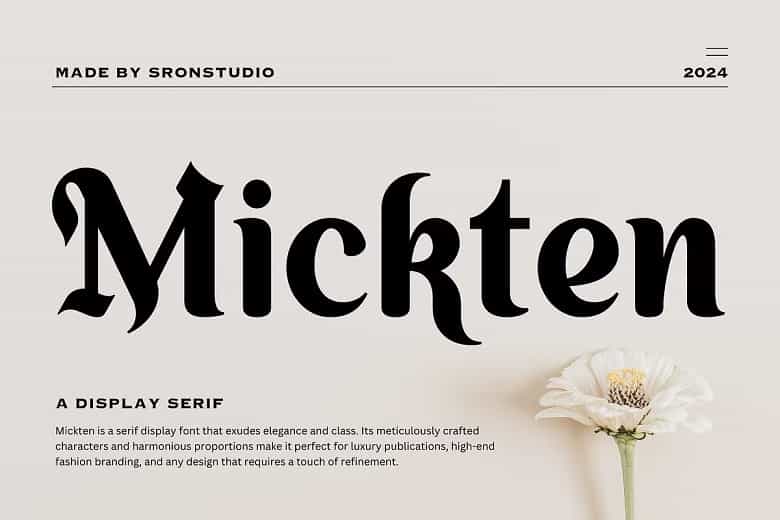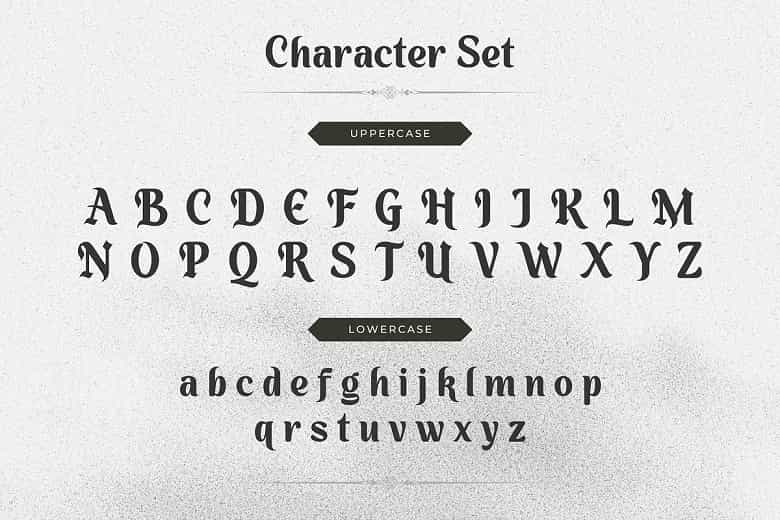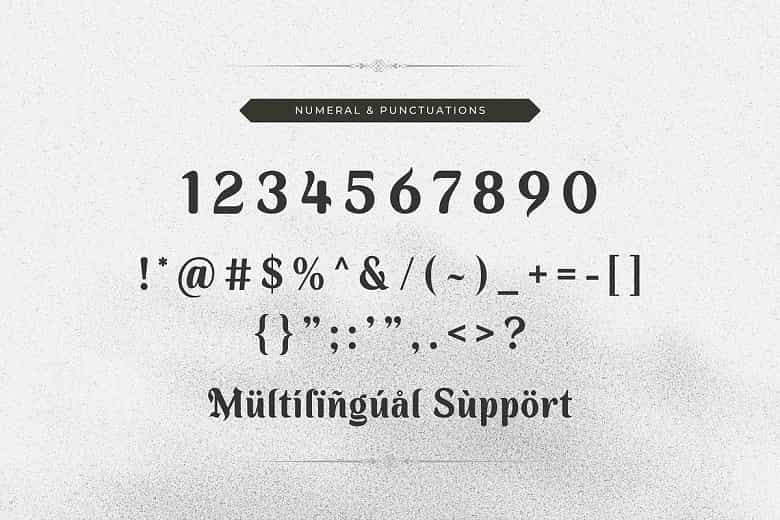
The display serif font called “Mickten” has a traditional look, yet it has a very contemporary feel to it. Its sturdy and clear serifs make it suitable for usage in headings, billboards, posters and logos that need to capture people’s attention. When applied to a magazine cover or a book title, or even a logo,